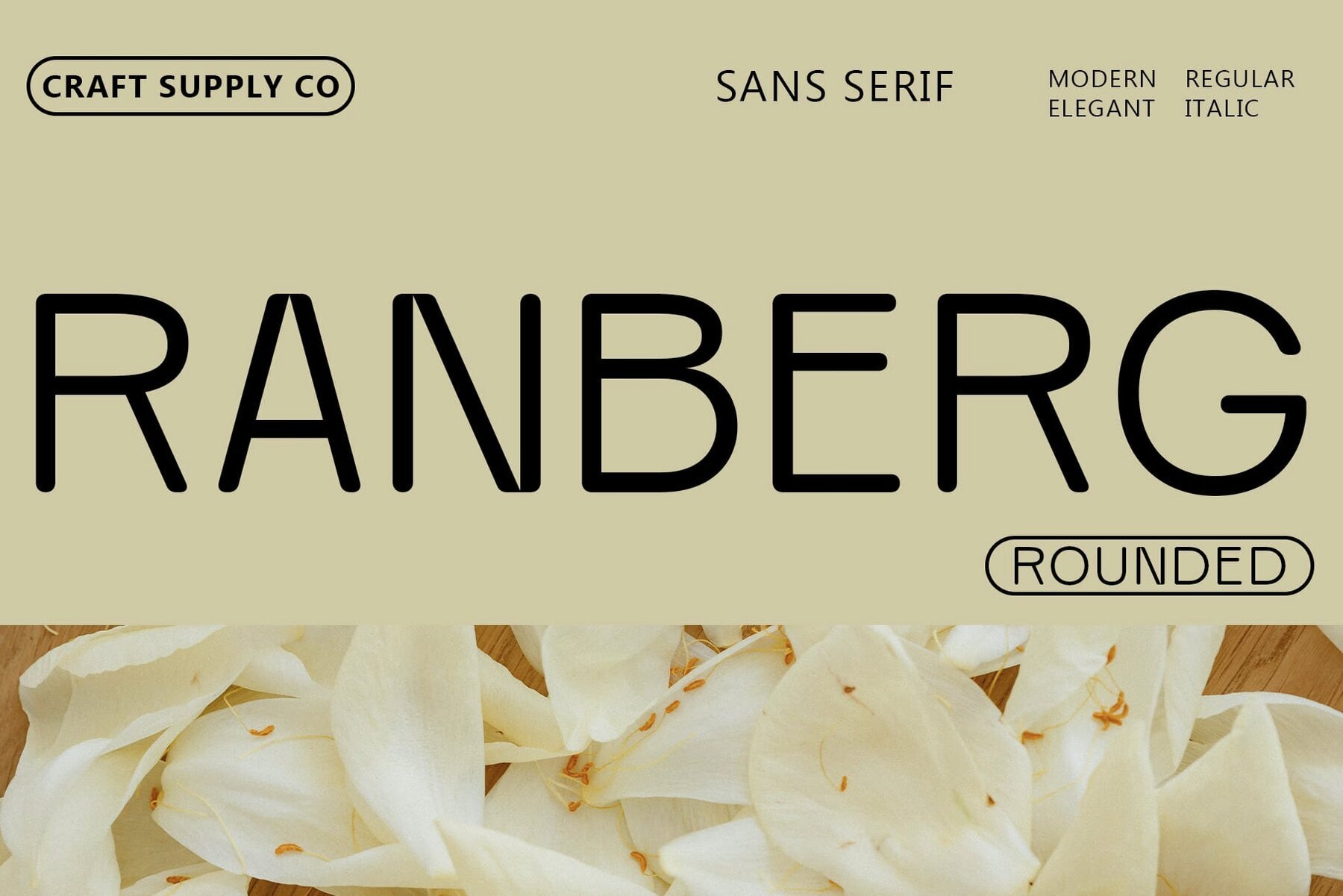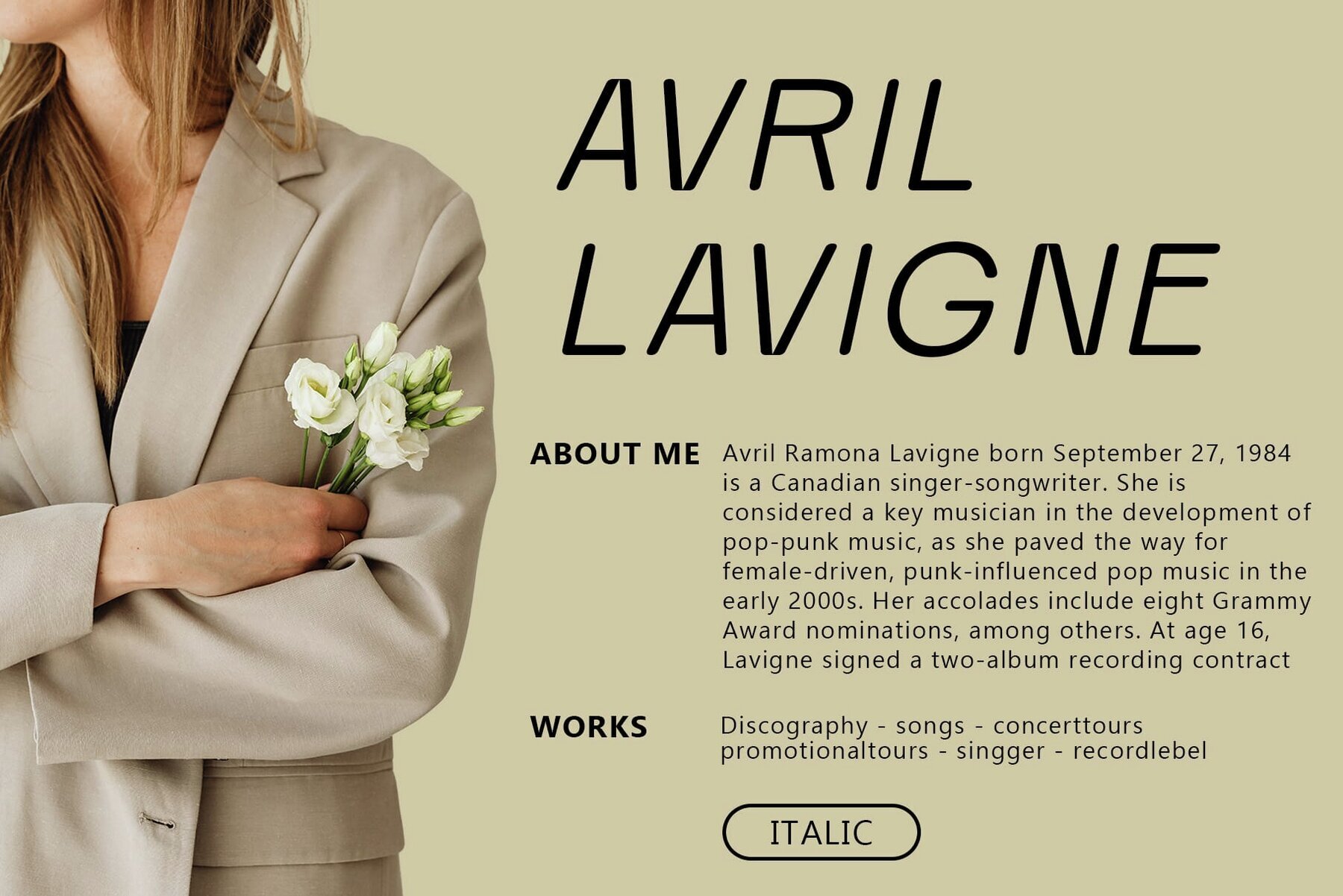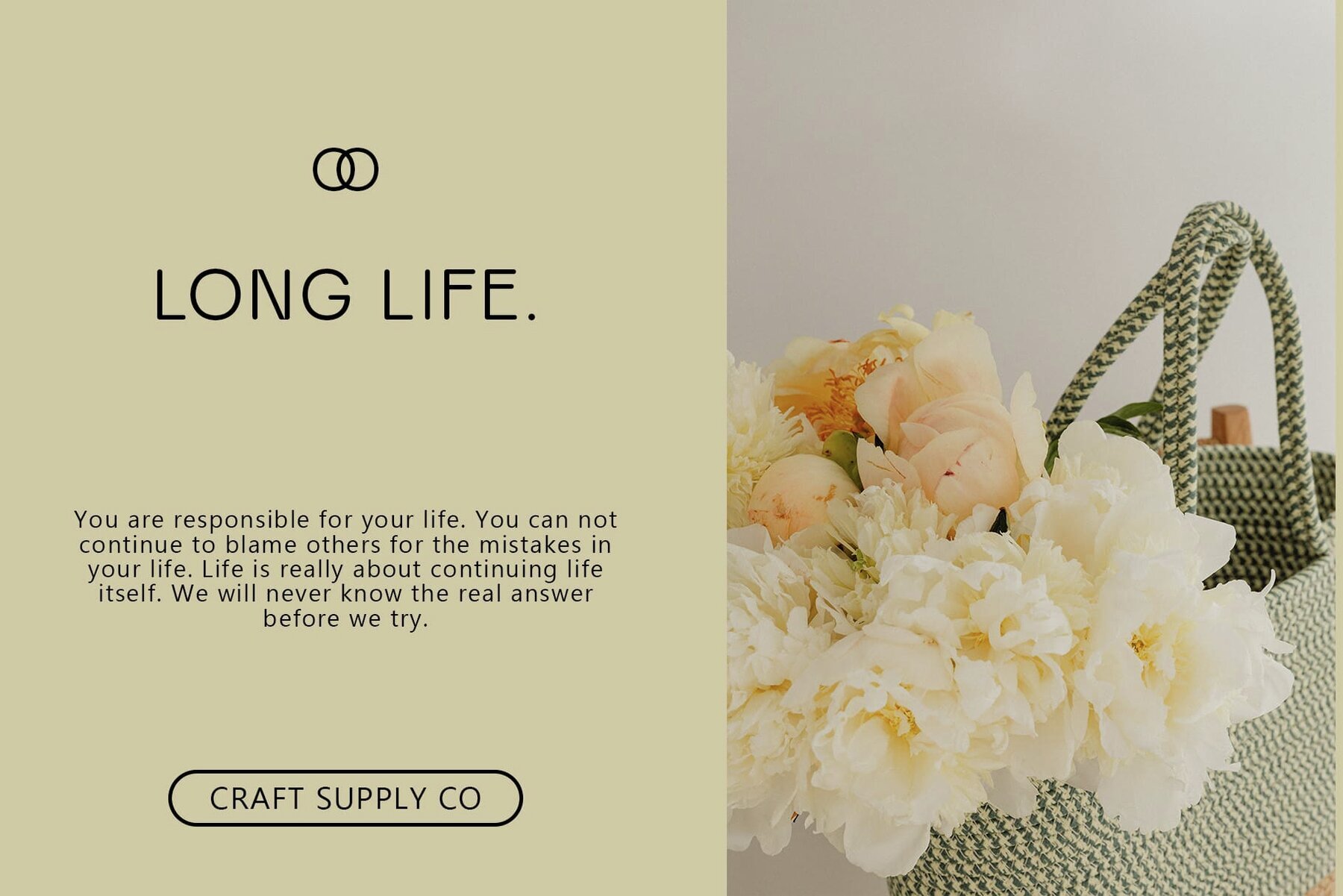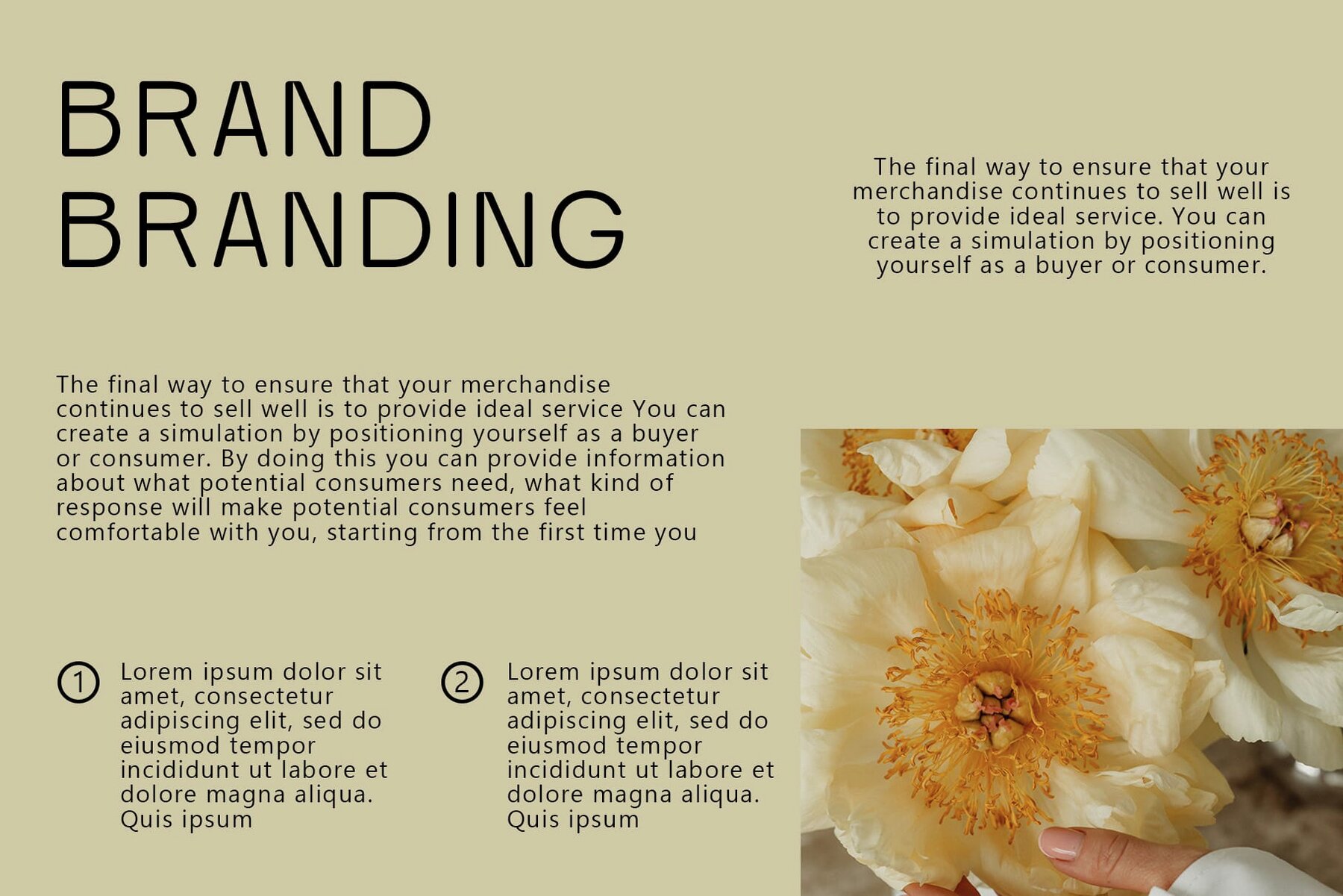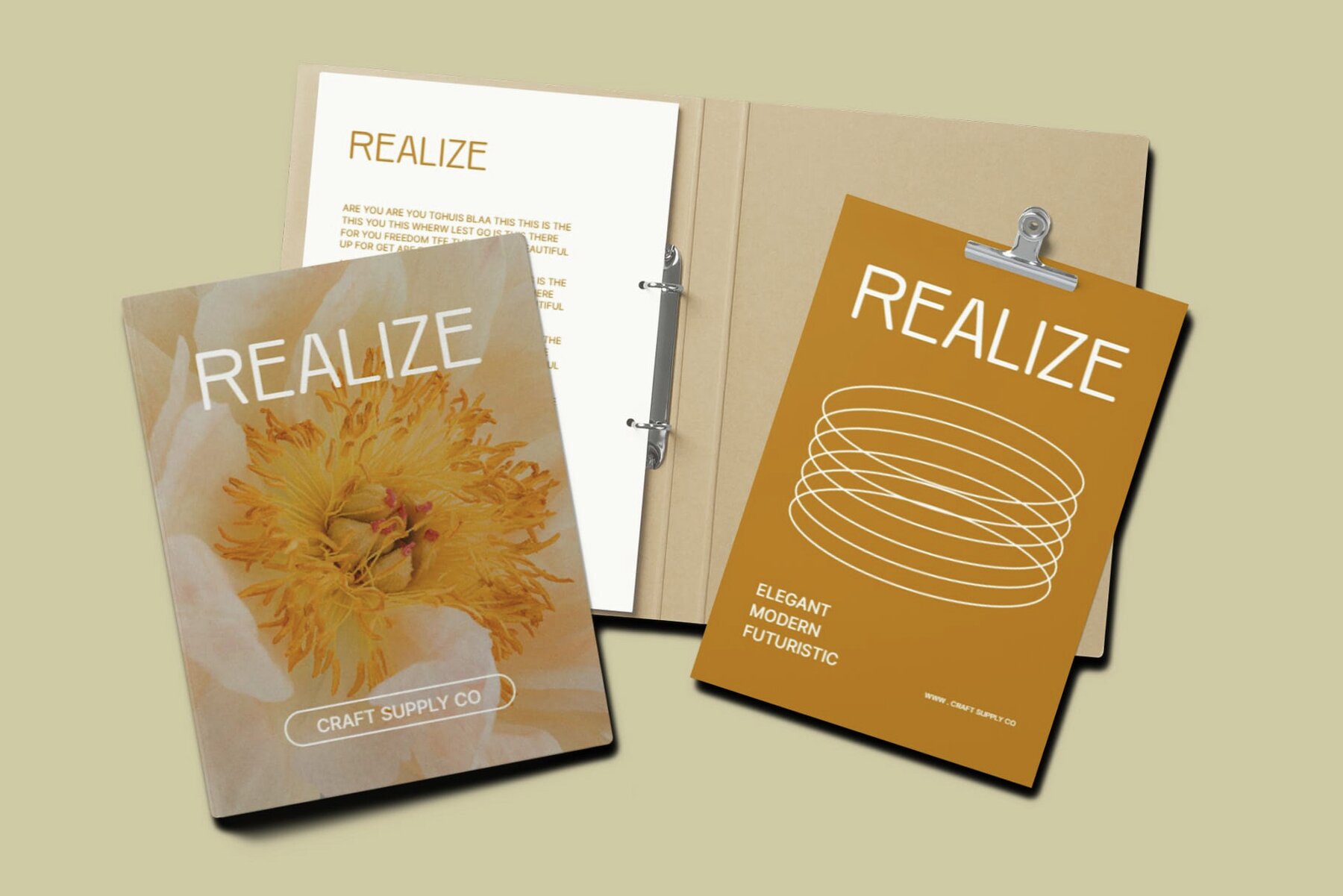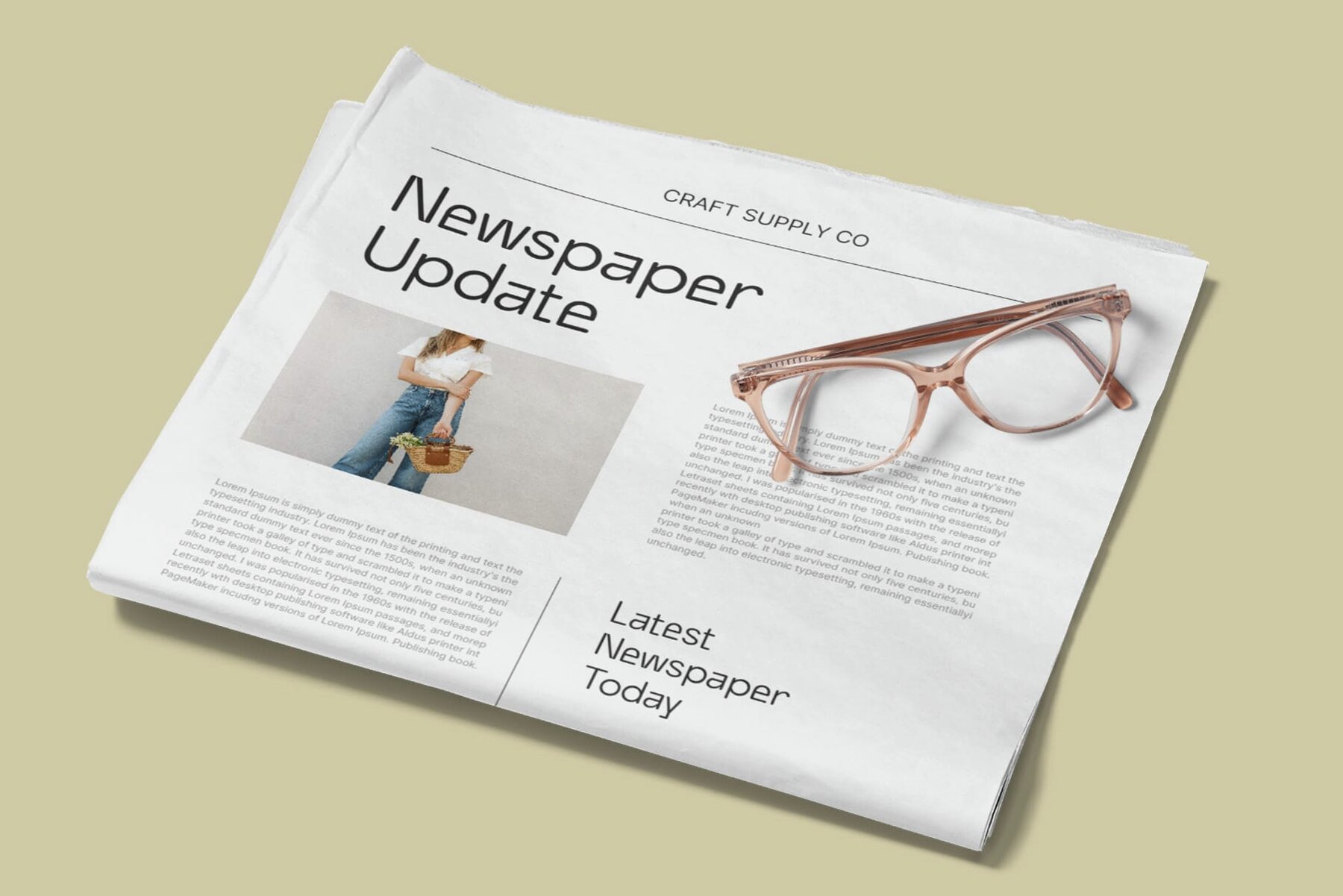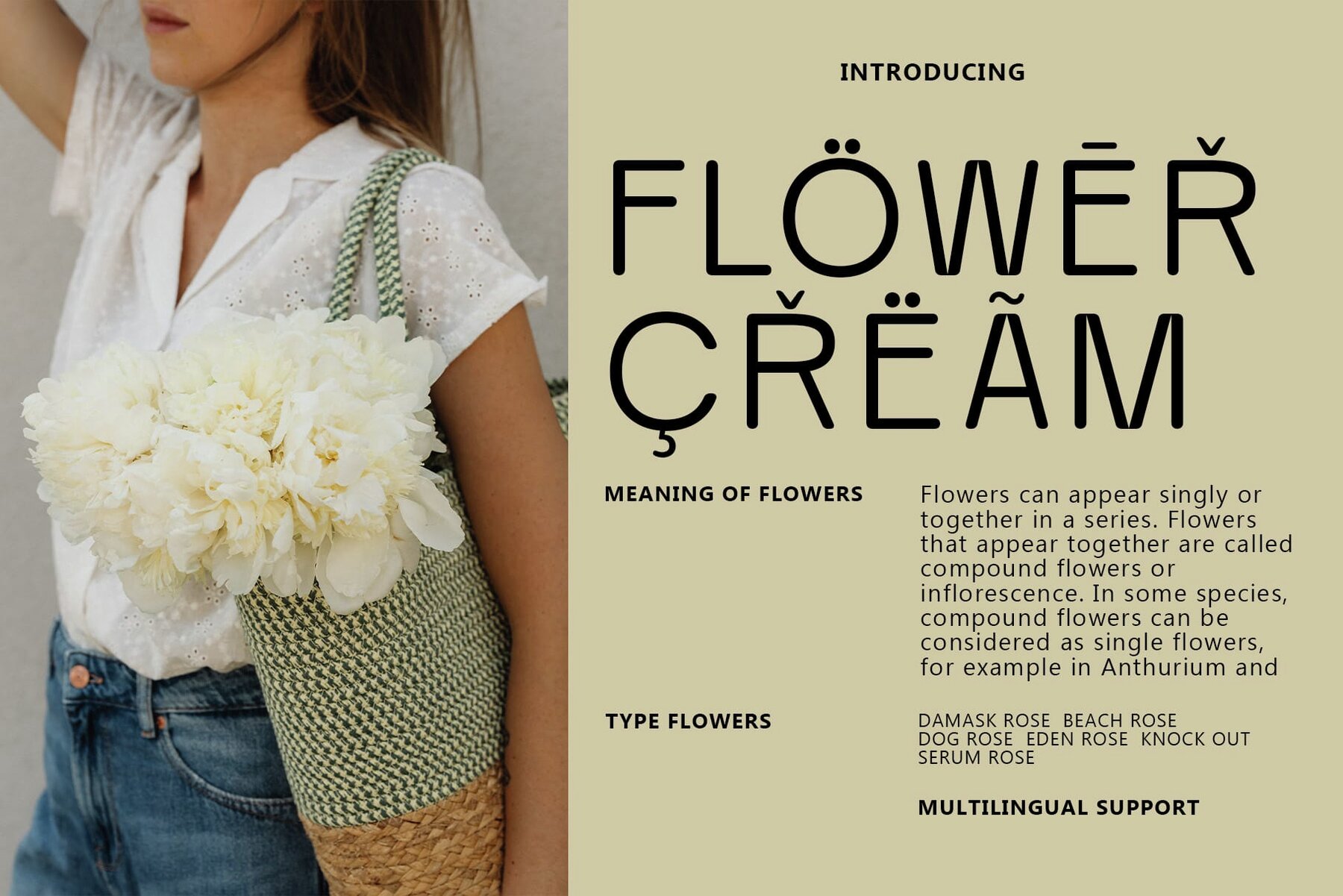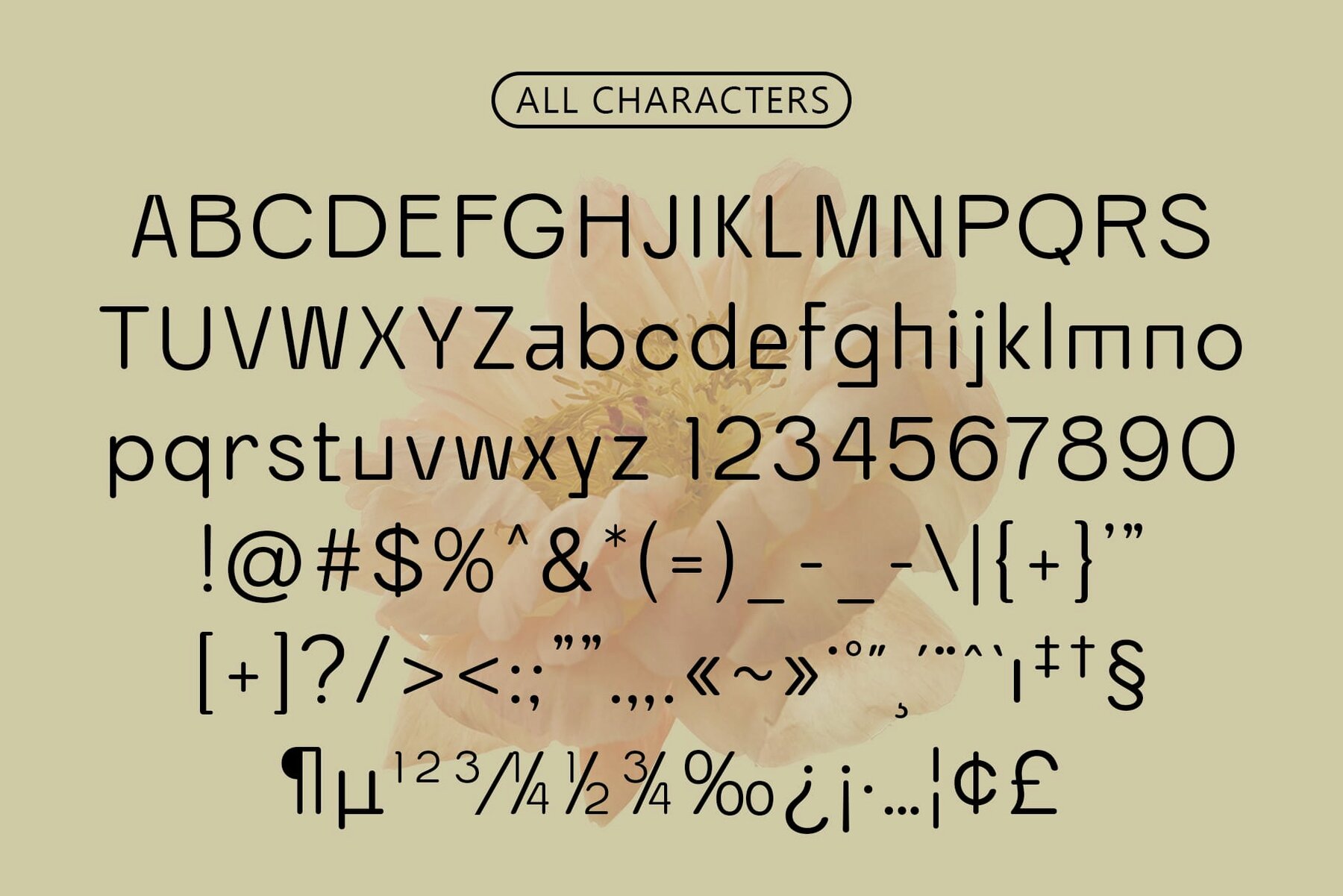
Ranberg Rounded Font
For graphic designers and marketing professionals seeking simplicity in their creative projects, Craft Supply Co presents the versatile "Ranberg Rounded." This sans serif font features low contrast and rounded strokes, perfectly embodying modernity and minimalism for a sophisticated and professional design.Ranberg Rounded: Sleek Sans Serif with Rounded Strokes